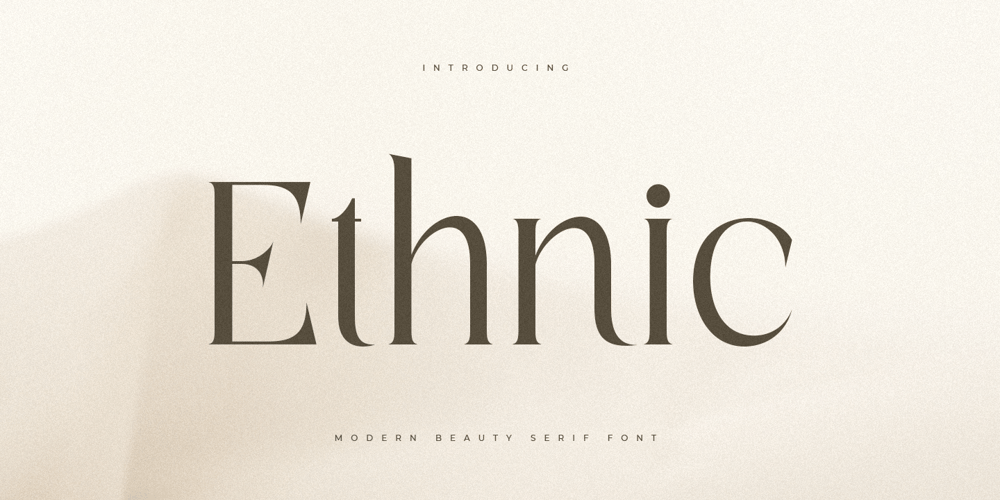
Ethnic Font Family was designed by Zamroni Hamzah and published by Sensatype Studio. Ethnic contains 1 styles and family package options. A Luxury Modern Serif font that we created special for elegant branding needs, with unique shape will be ready to add value of your brand. Ethnic Luxury Modern Serif Font ready with: Unique Classy Characters Preview as a inspirations that you can do with Ethnic font Ready with Lowercase and Uppercase characters Wish you enjoy our font. ๐